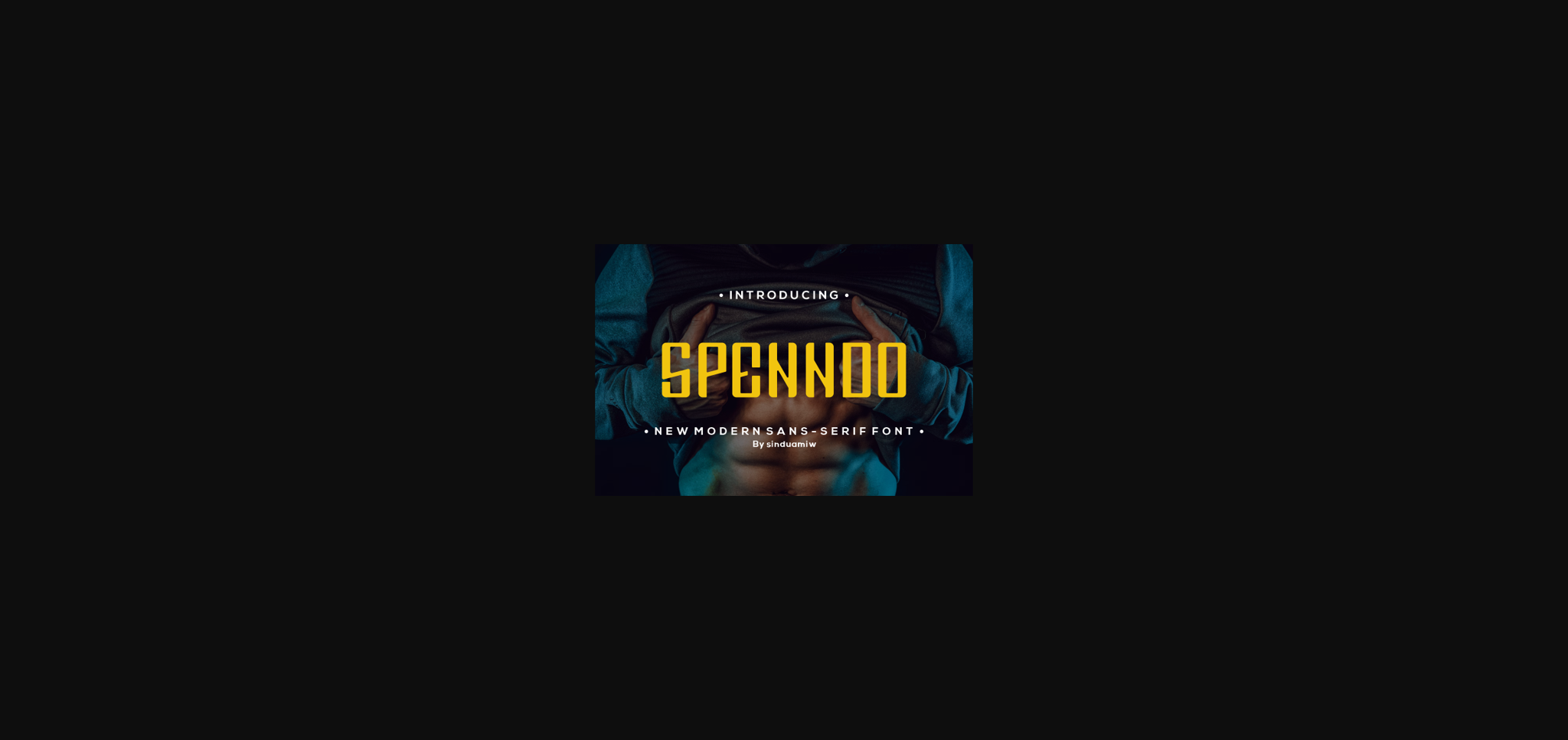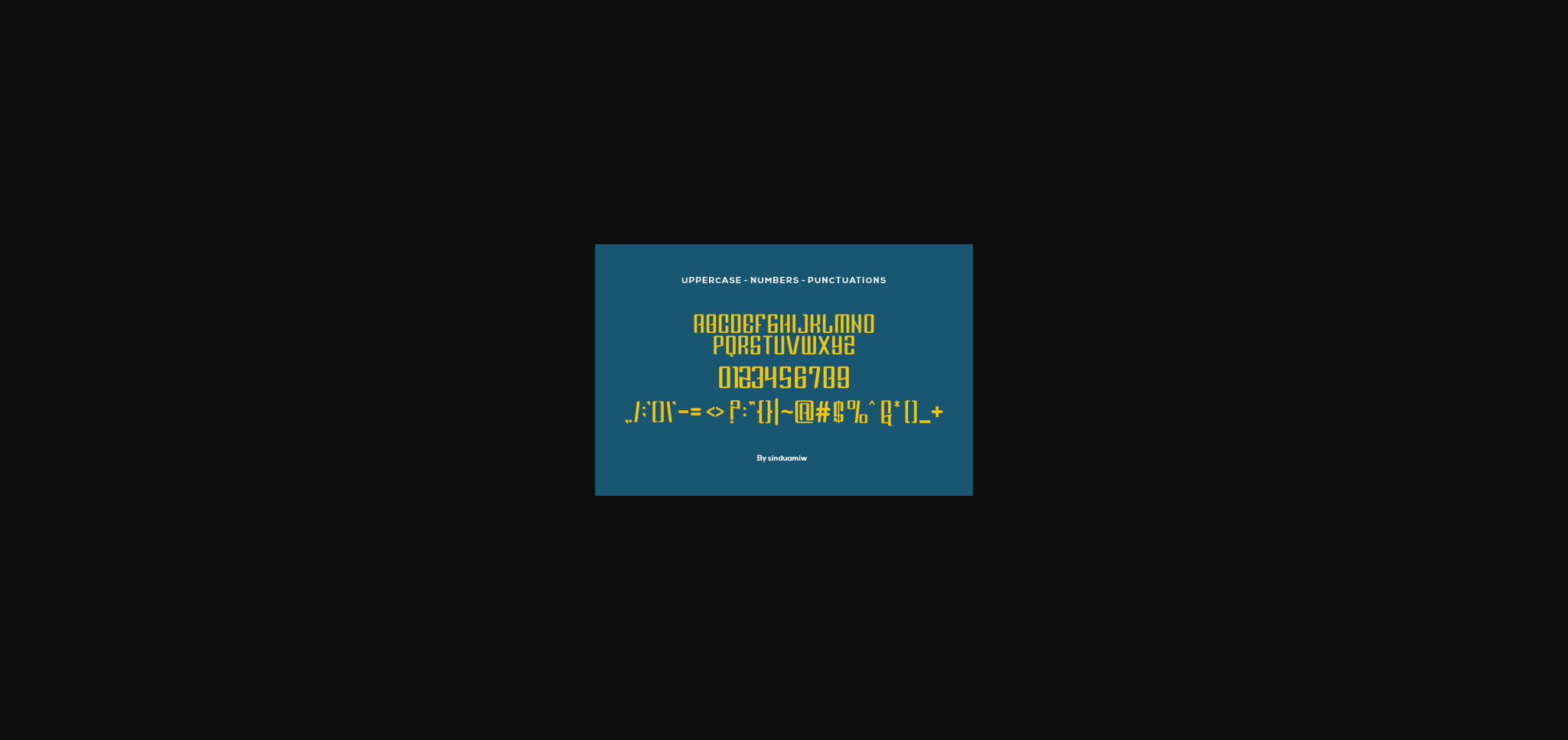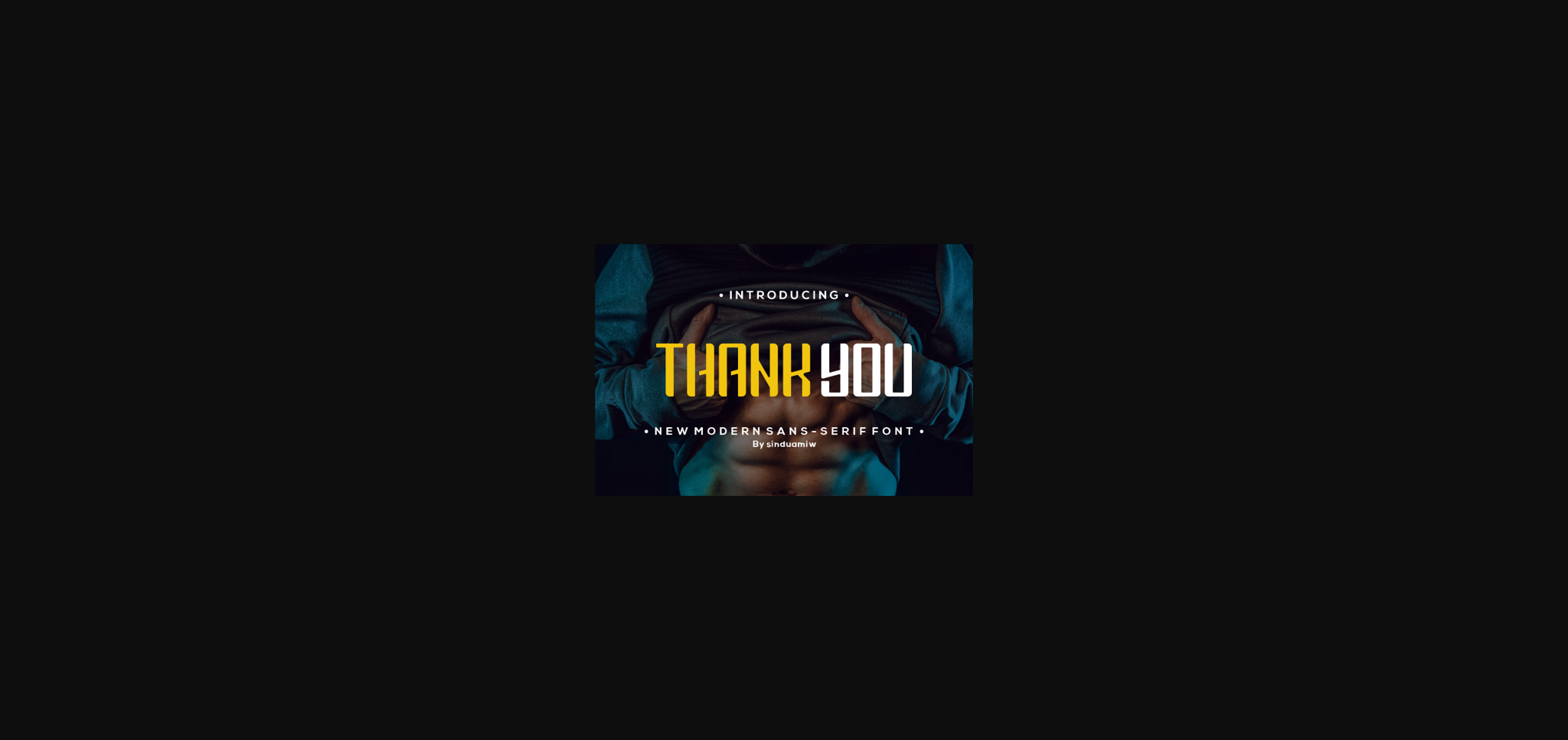
About Speendo Font
Speendo is an elegant sans serif font, that features a very delicate and classy look. Not too thin and not too thick, balanced and varied, Florania was designed to enhance the beauty of your projects.